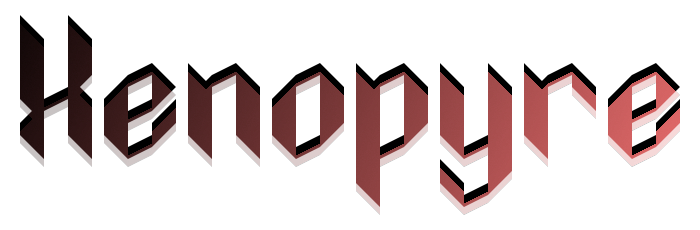
Xenopyre Font
By request, a skewed, spooky sans-serif. Supports Dutch and English only for the time being.
This is in many ways a continuation of "Basalt", an earlier design of mine.